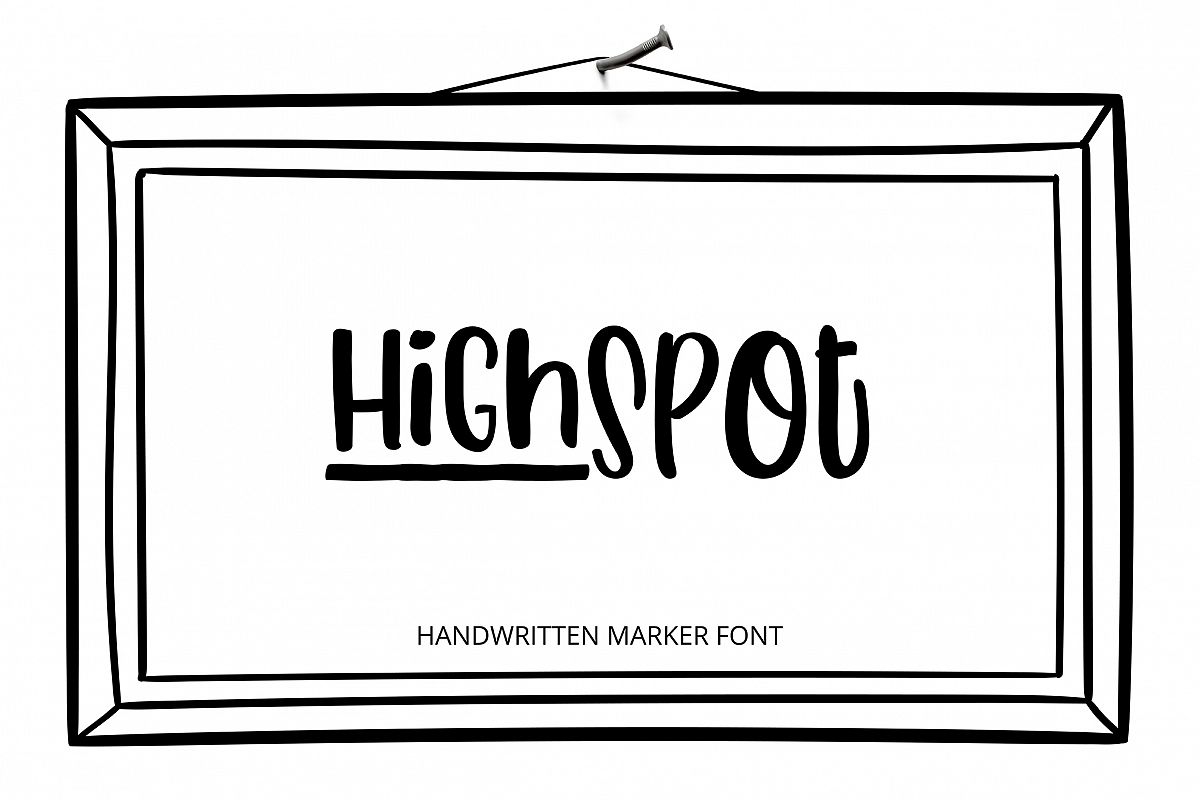
HighSpot Font
I’m pleased to introduce my nandwritten marker font HighSpot!
This casual font comes in 2 styles: regular and underline. All letters (uppercase and lowercase) have the same height.
You can combine those variations to make stunning designs and create a unique look.